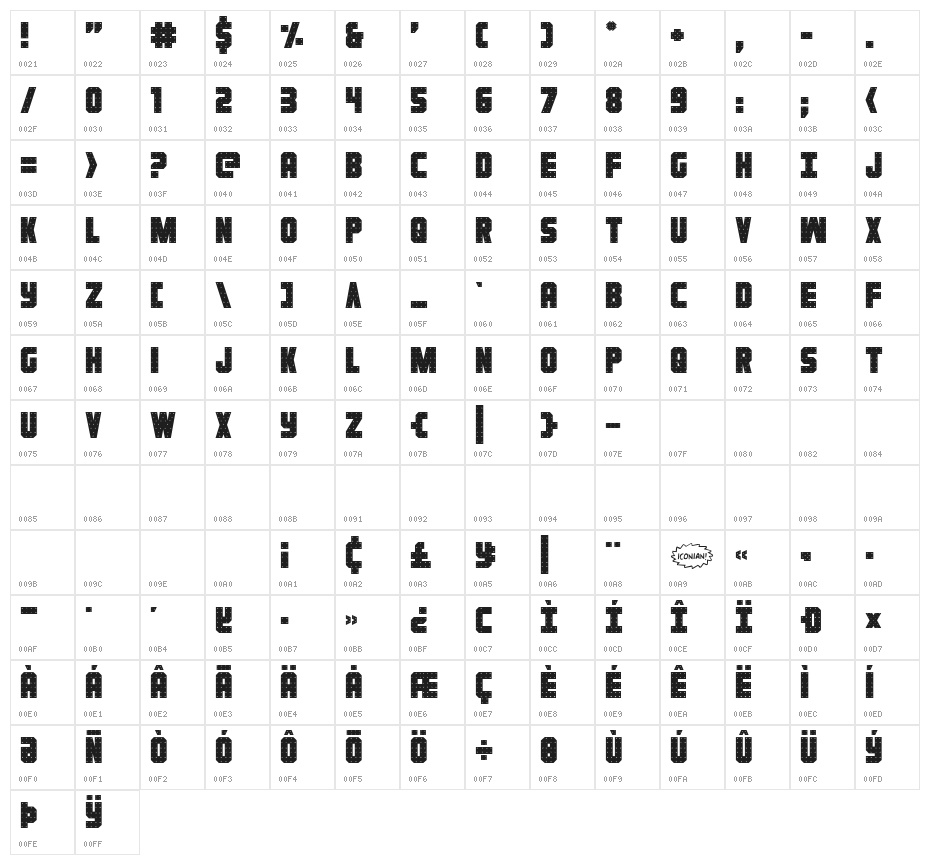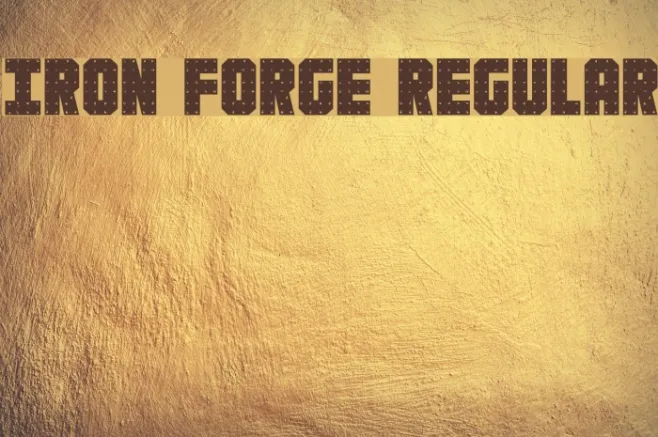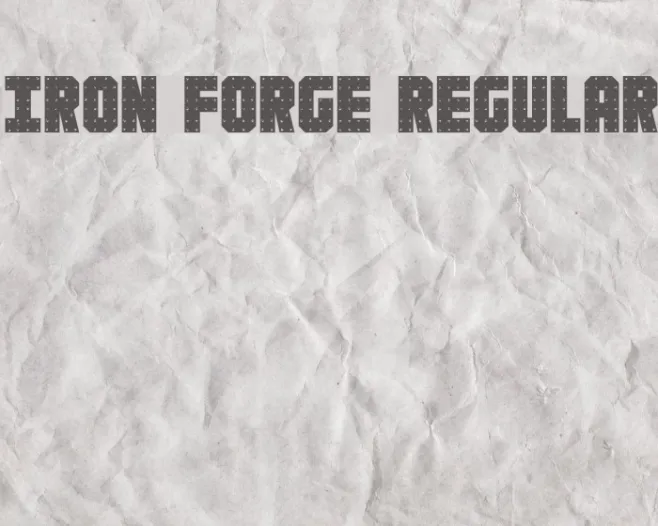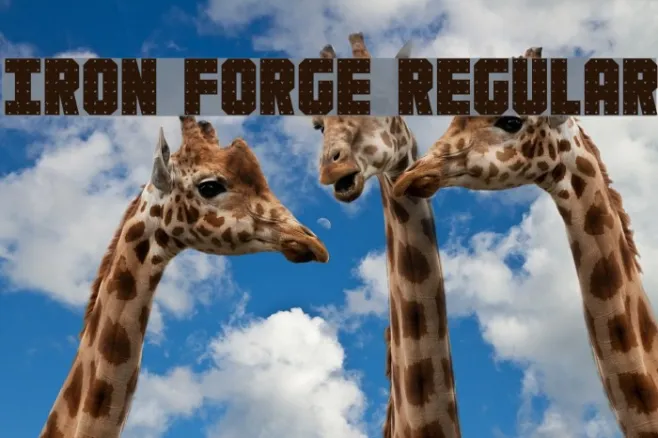
Iron Forge Regular Font
Iron Forge Regular Description
This font features a bold, industrial design with a distinct geometric structure. Each character is constructed with a blocky, robust appearance, reminiscent of metalwork or machinery. The font includes a unique pattern of small cut-out shapes within each letter, adding texture and depth. Its uppercase and lowercase letters maintain a consistent style, ensuring readability while providing a strong visual impact. The numerals and special characters follow the same design principles, making the font versatile for various applications.
| Overall Style | Industrial, Modern |
| Proposed Projects | Ideal for projects requiring a strong, industrial aesthetic such as branding for construction companies, tech startups, or video game titles. It can also be used for posters, signage, and any design needing a bold statement. |